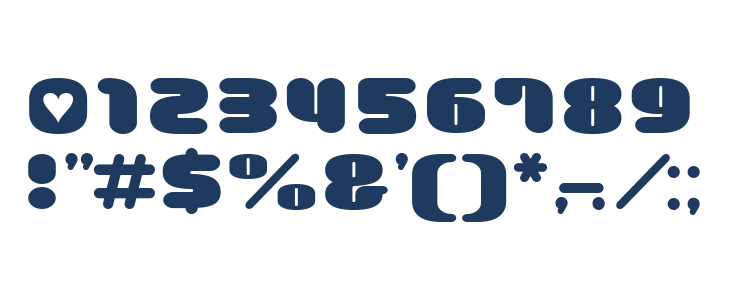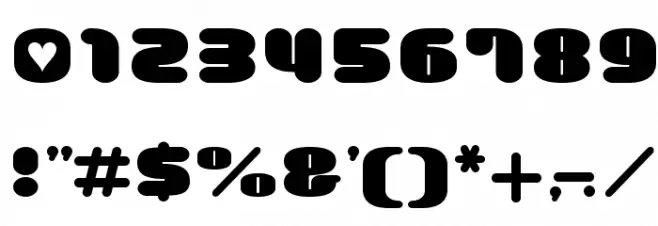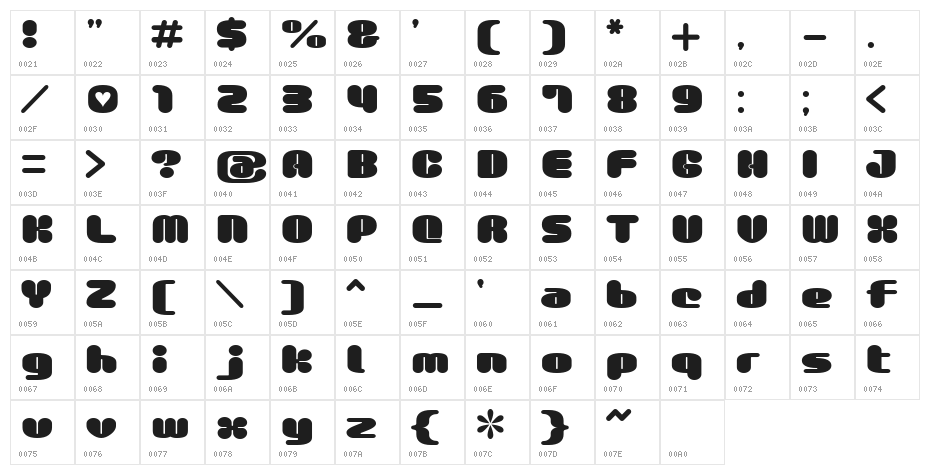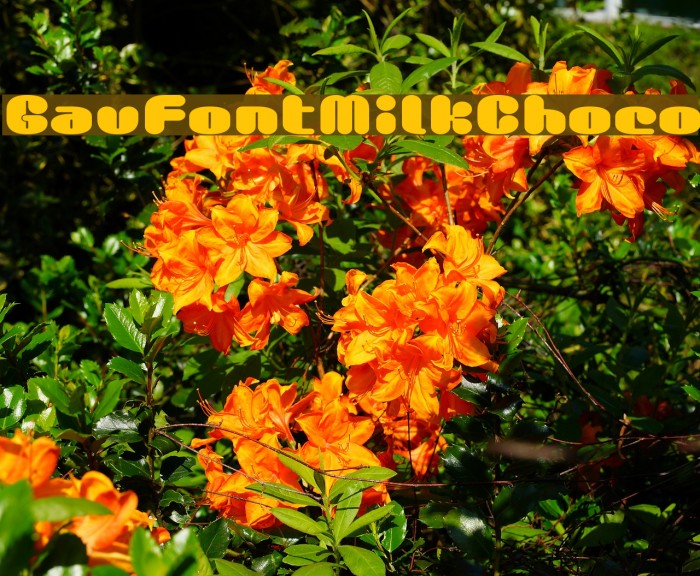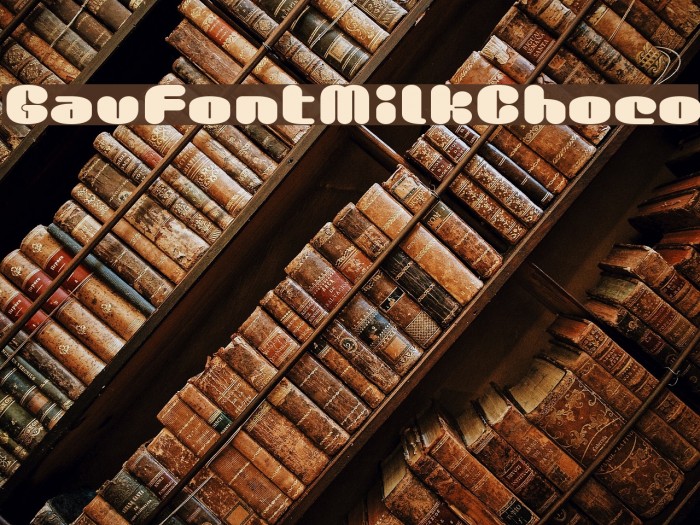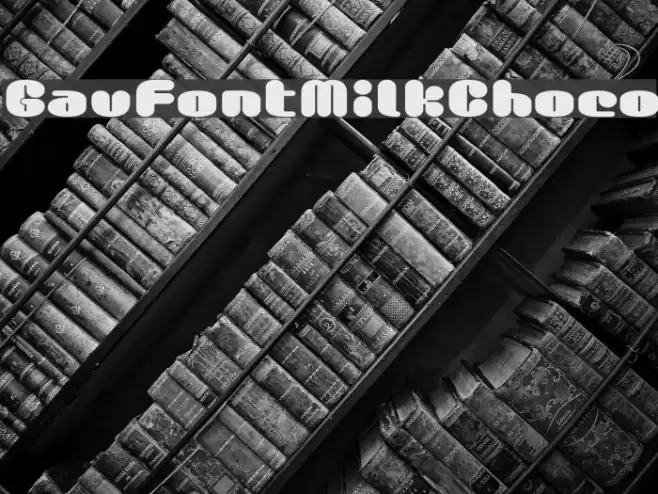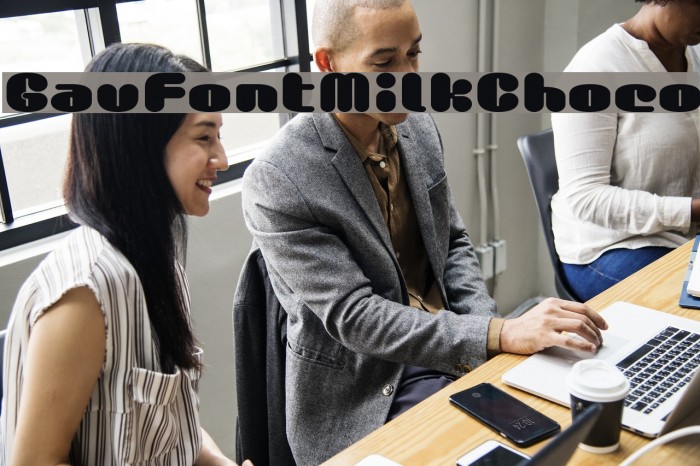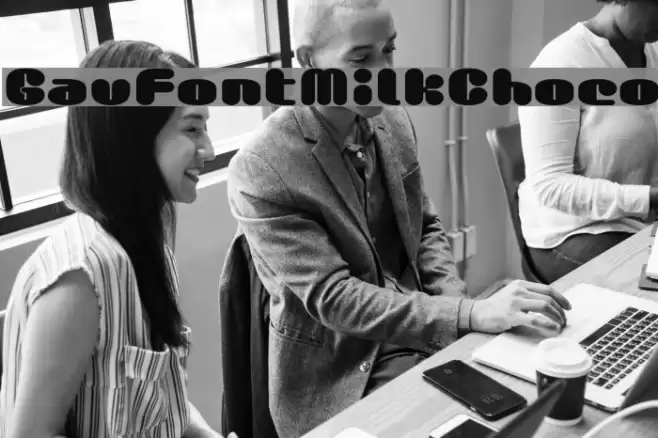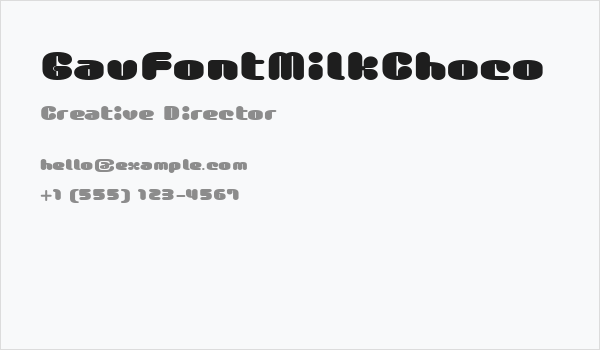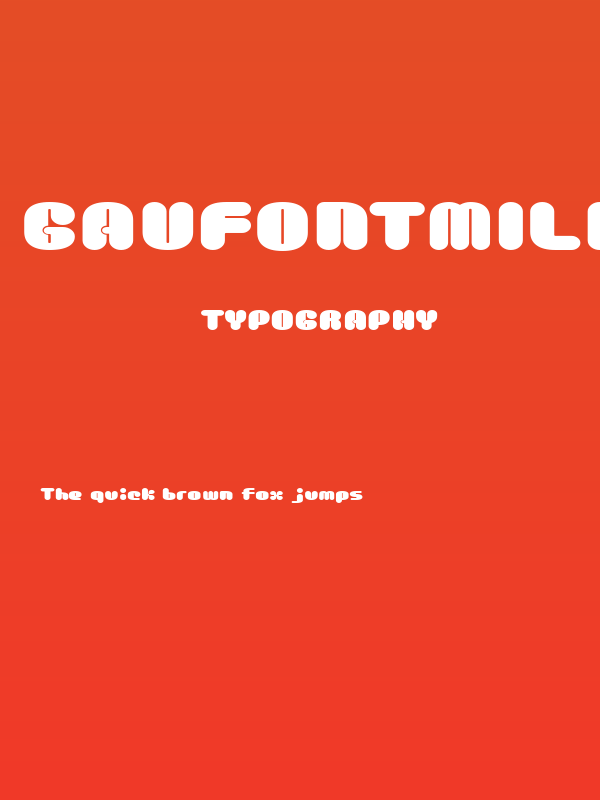
GauFontMilkChoco Font
GauFontMilkChoco Description
This font features a bold, rounded style with a playful and modern aesthetic. The characters are thick and have a consistent weight, giving them a strong presence on the page. The rounded edges and uniform stroke width create a smooth and friendly appearance, making it ideal for designs that require a touch of whimsy and approachability. The font includes both uppercase and lowercase letters, numbers, and a variety of special characters, ensuring versatility in its application. Its boldness and unique style make it stand out, perfect for eye-catching headlines or creative branding projects.
| Proposed Projects | Ideal for branding, headlines, posters, and playful design projects. |